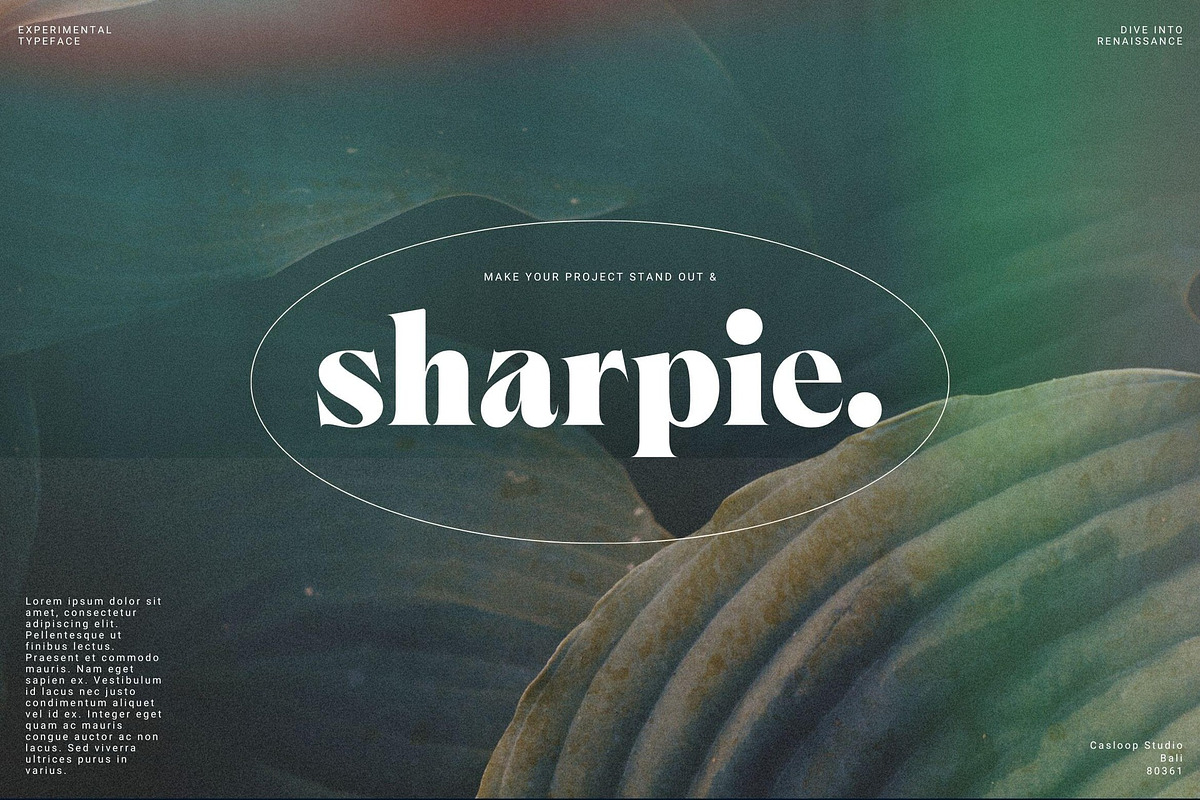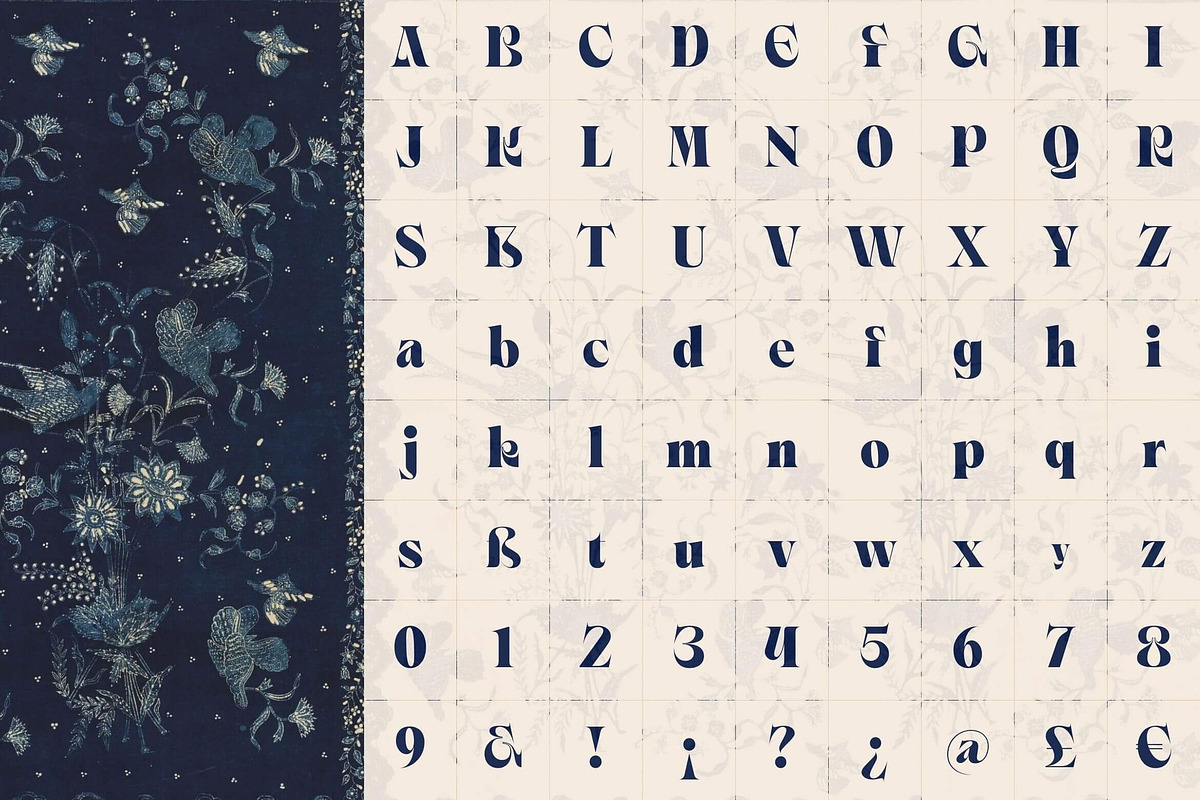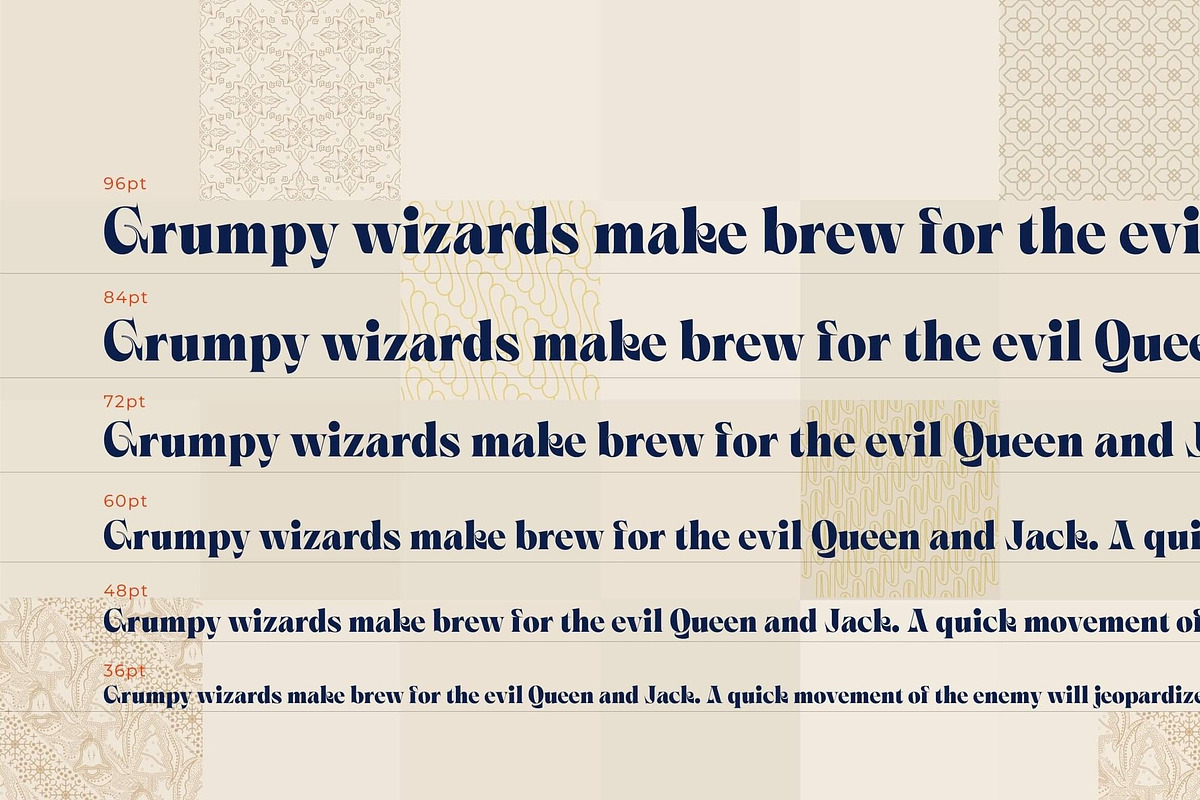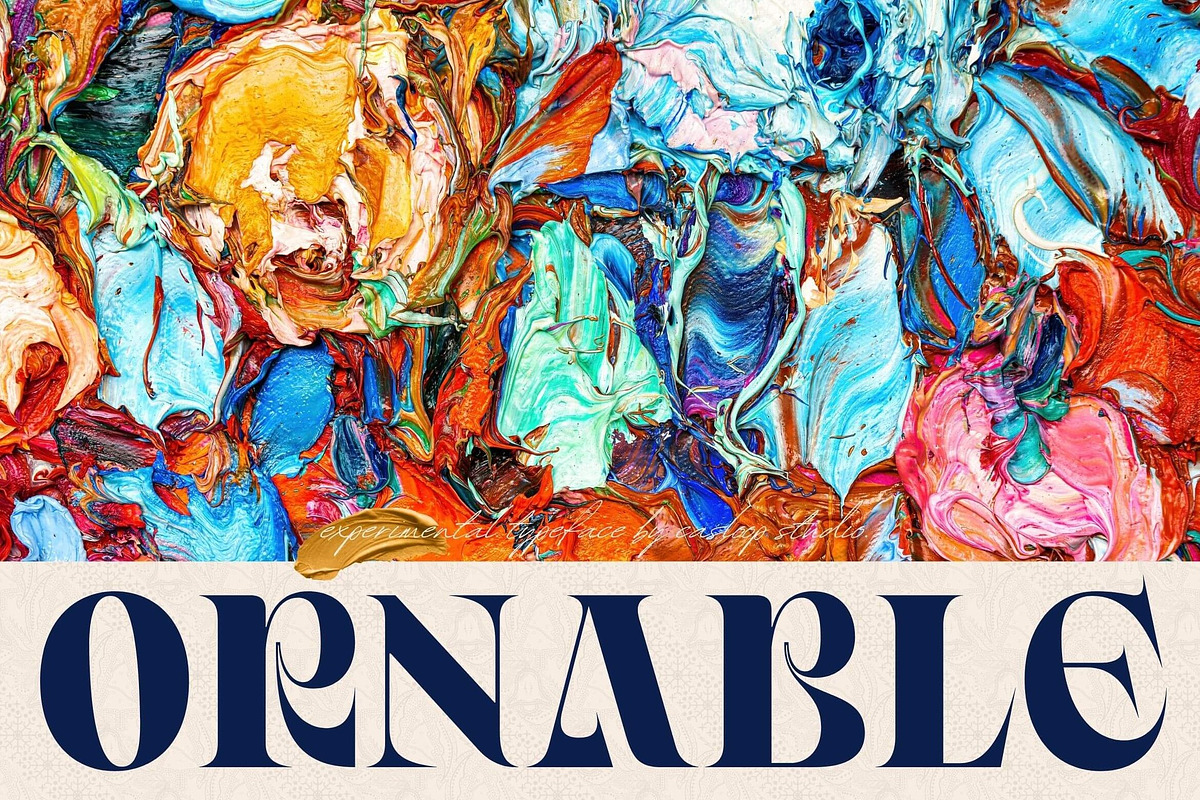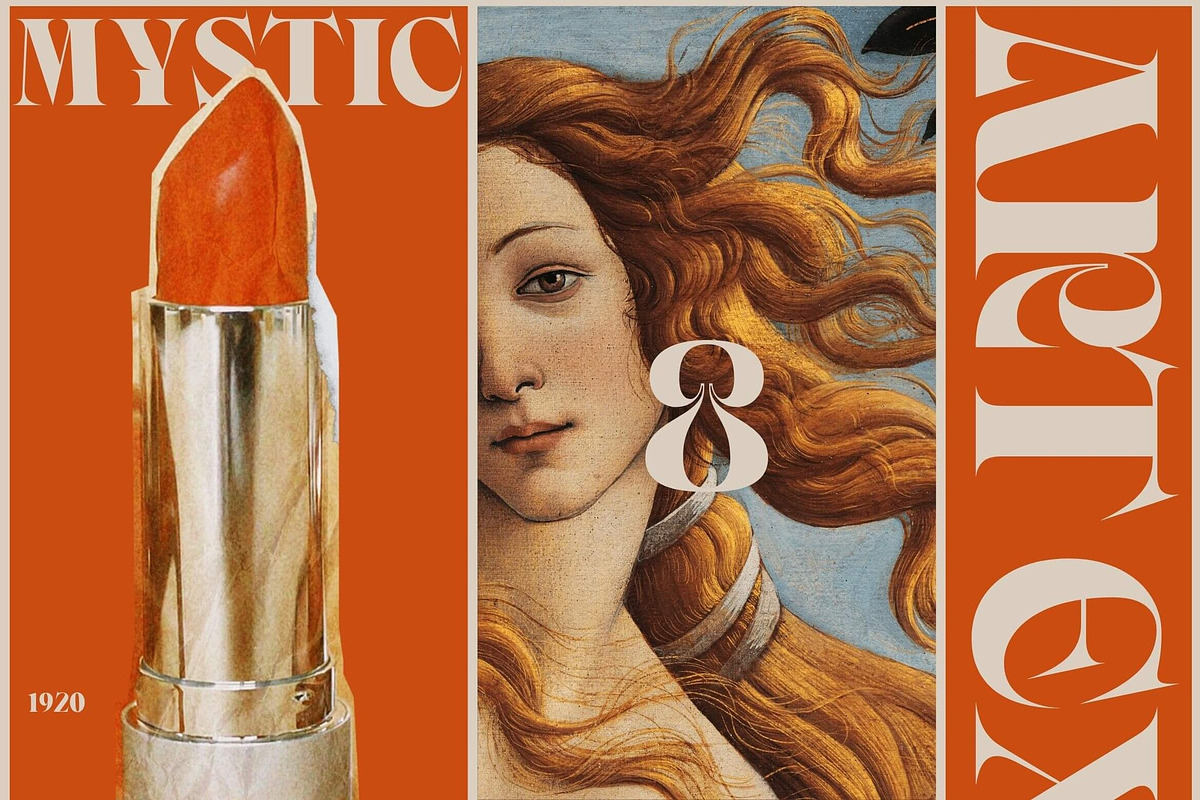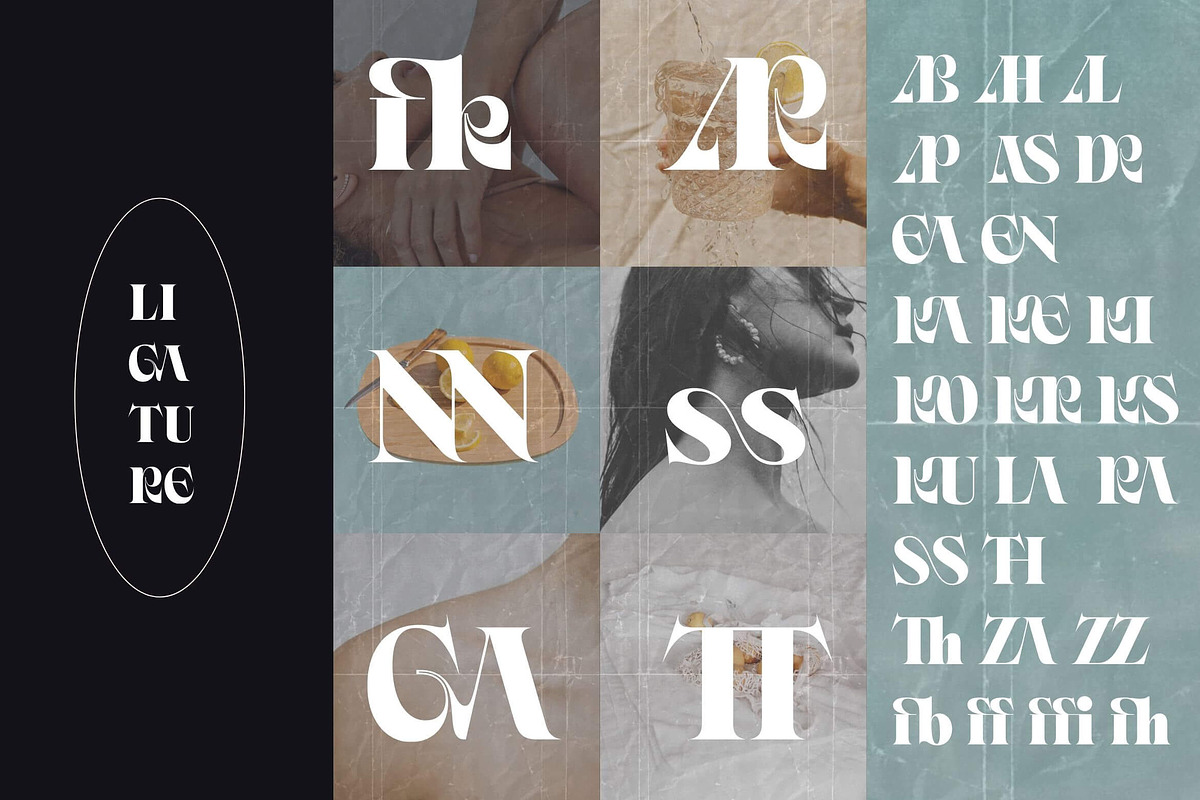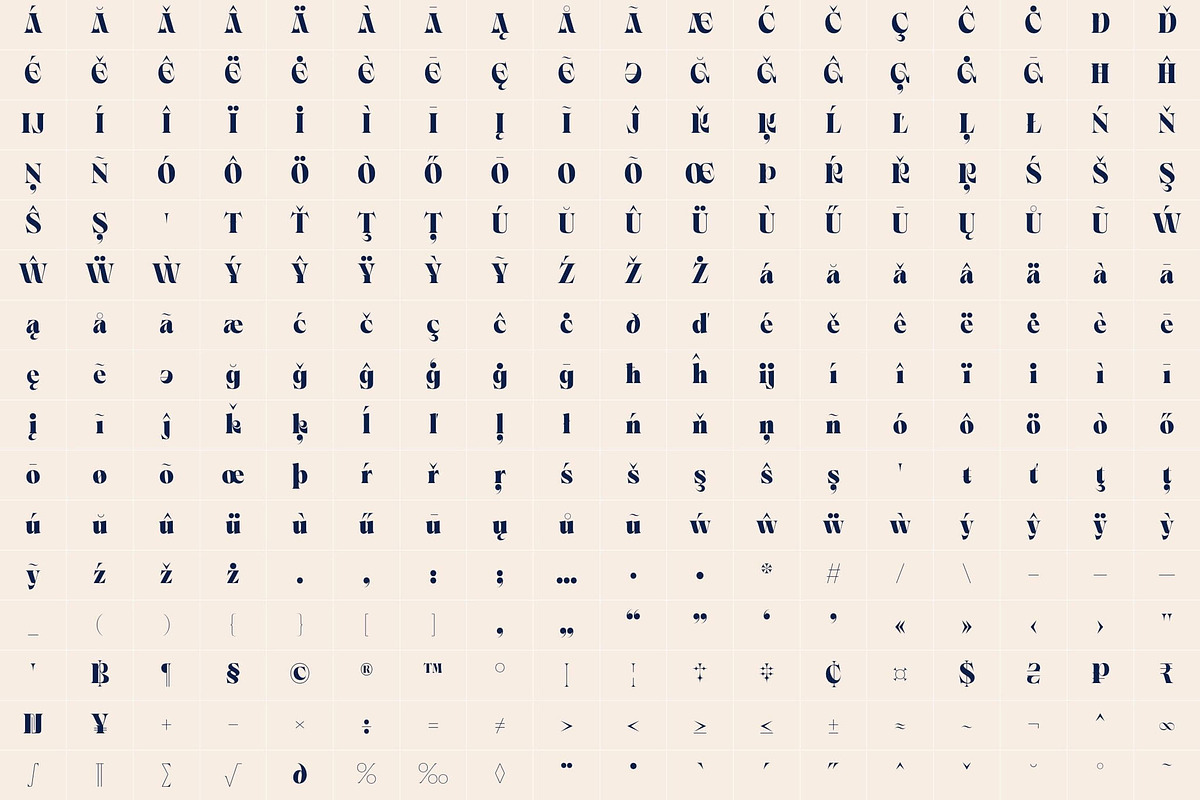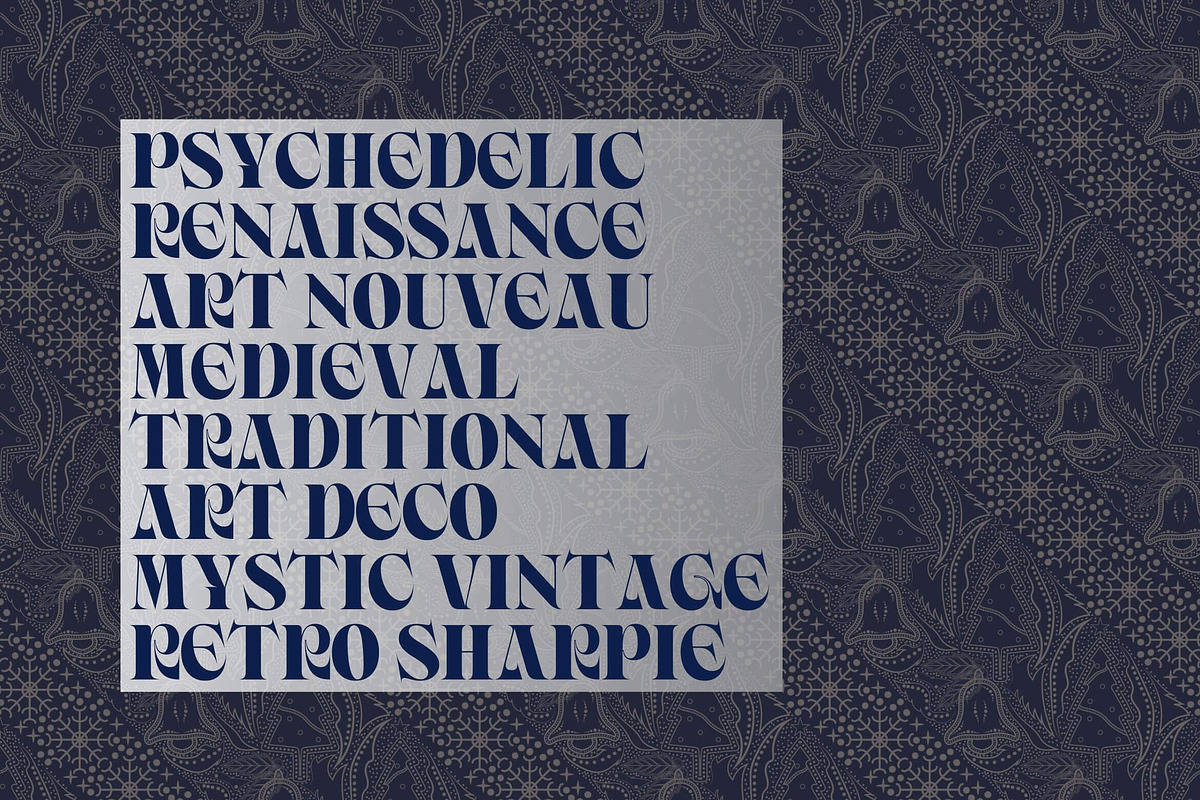
Ornable Experimental Typeface
Meet Ornable Typeface, your font of choice for a captivating blend of Renaissance, Art Nouveau, Medieval, and Art Deco vibes. This single-weight typeface is designed for those seeking a font that embodies a rich tapestry of artistic nuances.
The letterform, influenced by the Victorian style embedded in decorative romance, combines rounded serif conventions with historically relevant letterforms, creating a harmonious blend. The art nouveau style further inspires this typeface, adopting dynamic lines and curves from 1880 to 1915. Continuing the time travel, a more modern form is introduced, influenced by the digitalization of art nouveau derivatives, known as the psychedelic style.
In a nod to the Japanese Ukiyo-e style that influenced the fine arts movement, we present The Onamura font, breaking old conservative art in Europe. Carefully designed with information about the Middle Ages, Ukiyo-E, and Art Nouveau, this font family embodies a phenomenal blend of idealism between western and Japanese artists.
Ornable features an extended charset, ensuring multilingual support, including Western European, Central European, and Southeastern European languages. Advanced open-type features like stylistic alternates, discretionary ligatures, ordinals, small caps, fractions, and case-sensitive forms elevate its functionality.
- 35 meticulously crafted ligatures